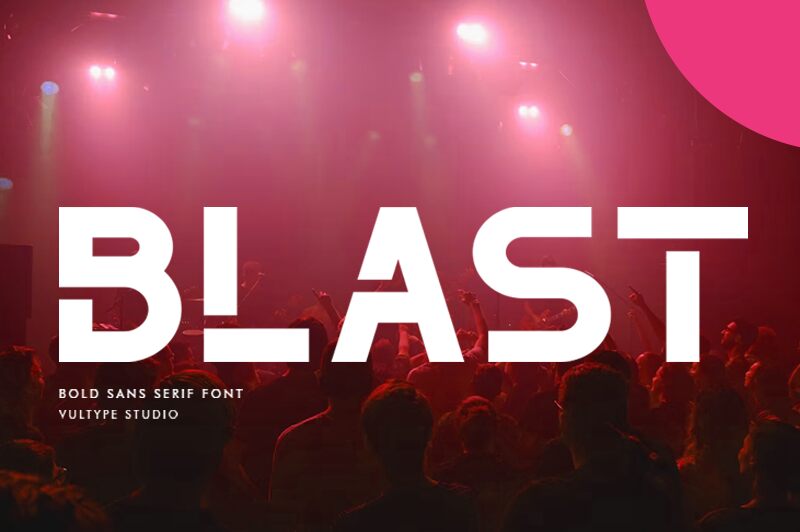
The Blast Regular
The Blast, a dynamic creation by Vultype, captivates with its bold and striking aesthetic. Its strong and expansive design commands attention, making it a perfect choice for headlines that need to make a statement. The distinct clarity in each character ensures readability while adding an unmistakable flair to any text.
Ideal for branding, posters, and high-impact designs, The Blast infuses creativity and energy into every project. Whether used on banners or digital assets, this font’s unique presence transforms ordinary compositions into extraordinary visual experiences. Unlock the potential of your designs with The Blast's powerful style.